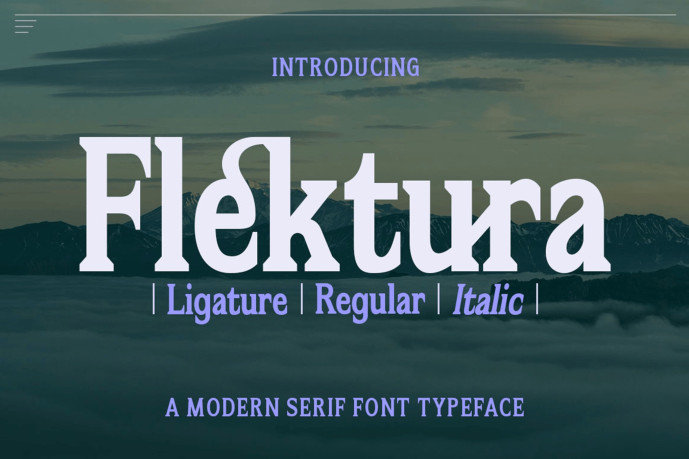
Flektura Serif Font
Flektura Serif Font is an elegant and warm serif typeface with a classic feel. This typeface is designed to enhance credibility. Flektura is encoded with PUA Unicode, allowing full access to all additional characters without the need for special software. Mac users can use Font Book, and Windows users can use Character Map to view and copy additional characters for pasting into your favorite text editor/application.